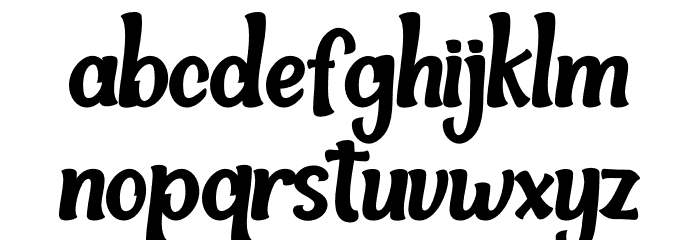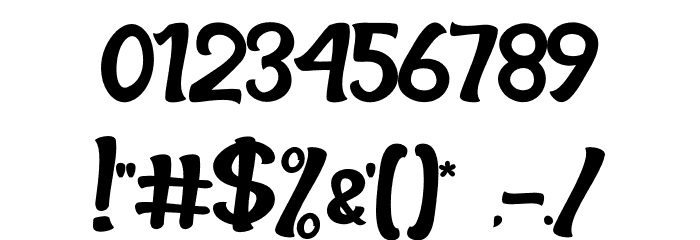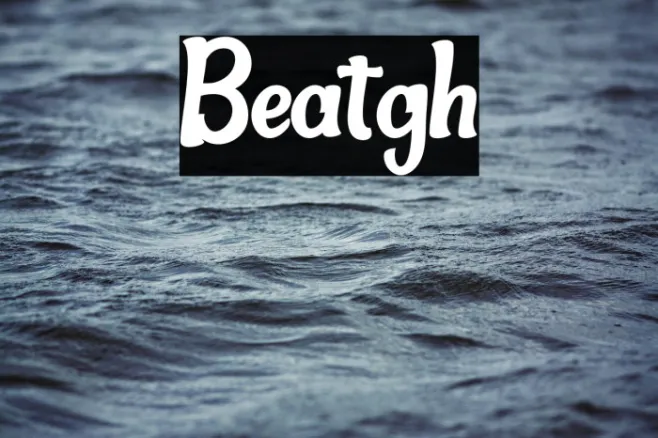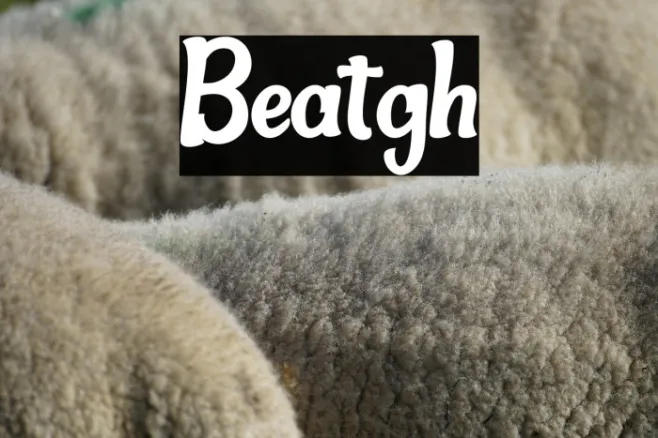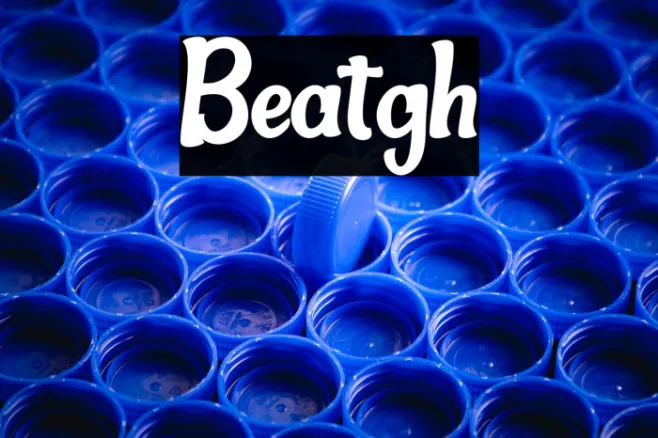
Beatgh Font
This font features a playful and dynamic script style with a bold presence. The characters are fluid and slightly slanted, giving a sense of movement and energy. The uppercase letters are particularly striking, with exaggerated curves and loops that add a whimsical touch. The lowercase letters maintain a consistent flow, complementing the uppercase with their rounded forms. Numbers and special characters are designed to match the overall style, ensuring cohesion across all elements. The font's boldness makes it stand out, while its script nature adds a touch of elegance and creativity.
A bold, playful script font with dynamic curves and a whimsical style.
- Proposed Projects: Ideal for creative projects such as invitations, greeting cards, branding, and playful logos.
- Use Case: Logos, Headlines, Invitations